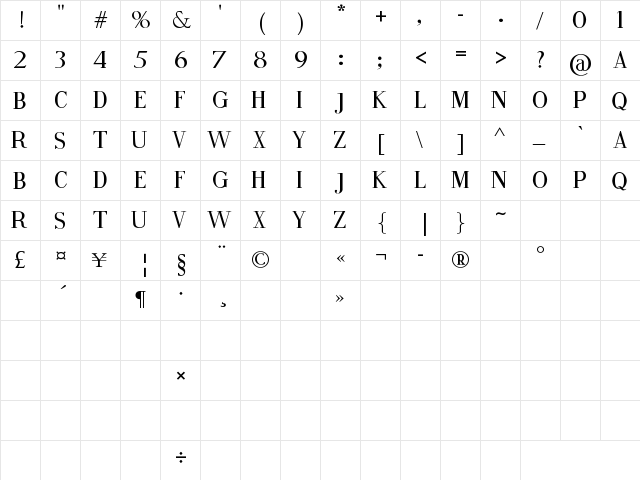
Fine Style Regular Font Preview
Fine Style Regular
Fine Style Regular Font Details
| Foundry | Galdino Otten |
| Designer | Galdino Otten |
Design Context for Fine Style Typeface
Fine Style takes a measured approach to typography — its balanced proportions and neutral character make it a reliable workhorse for both digital and print work.